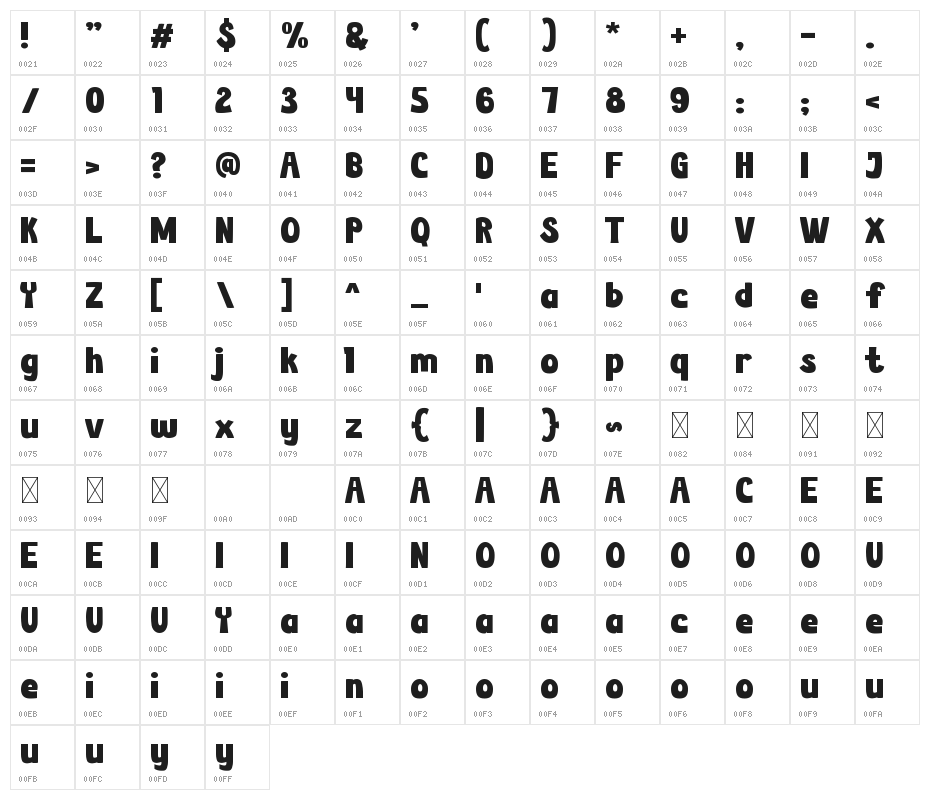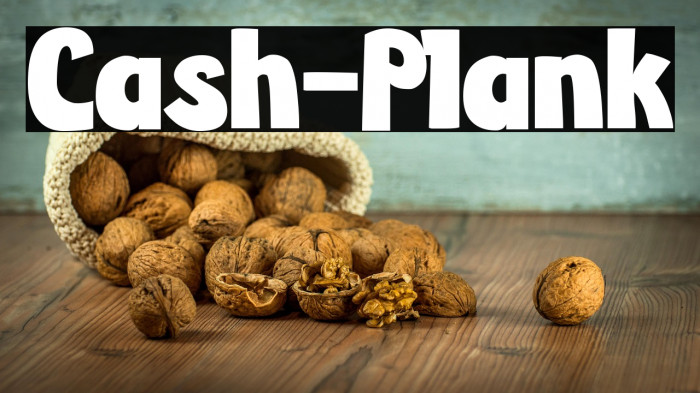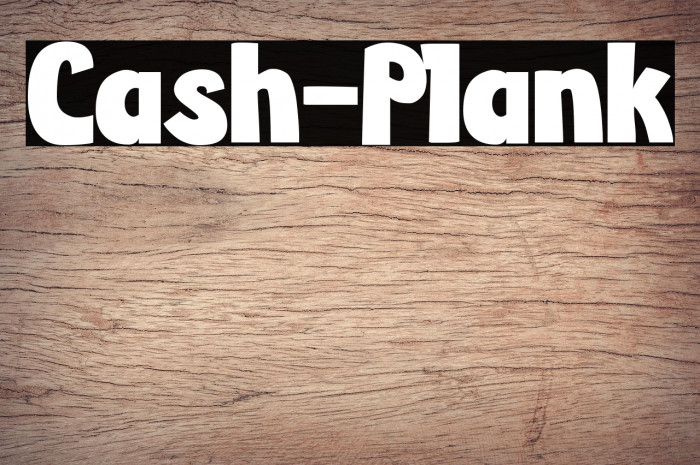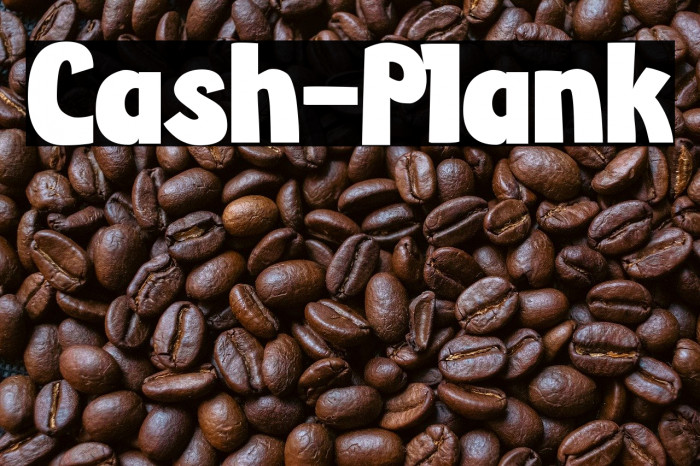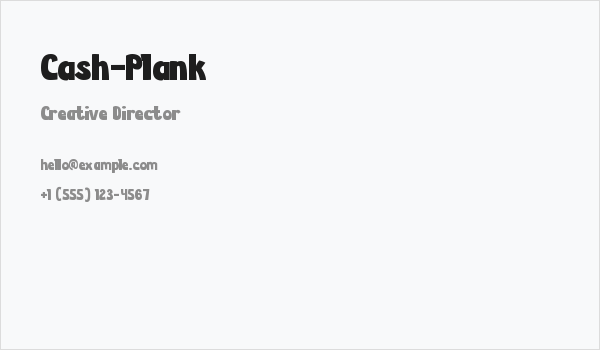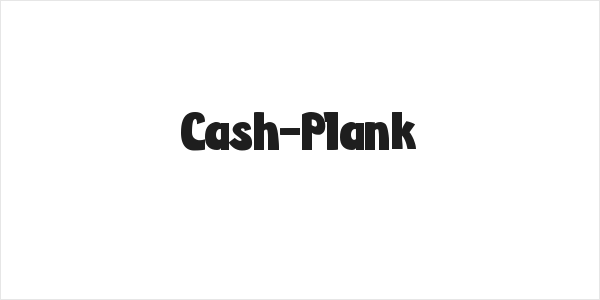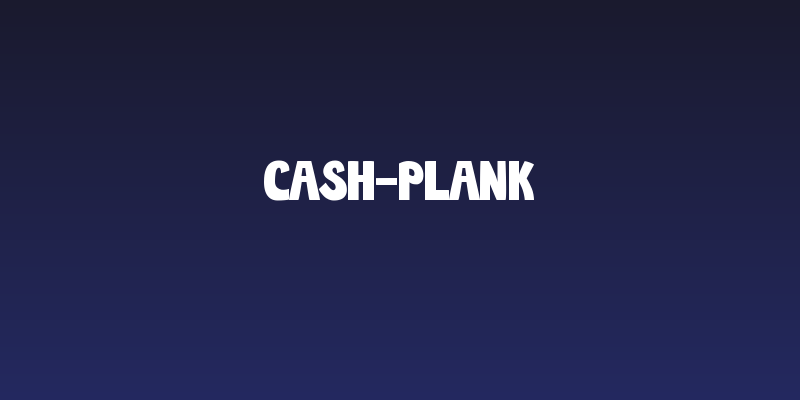
Cash-Plank Font
Cash-Plank Description
A bold, playful sans-serif typeface with exaggerated, uneven stroke widths and quirky, irregular letterforms that give it a hand-crafted, cartoonish appearance. The characters are wide and rounded, with a strong presence and high legibility.
| Overall Style | Decorative, Playful, Modern |
| Use Case | Headlines, Posters, Logos, Children's materials |
| Proposed Projects | Children's books, posters, comic titles, branding for playful or informal products, event flyers. |